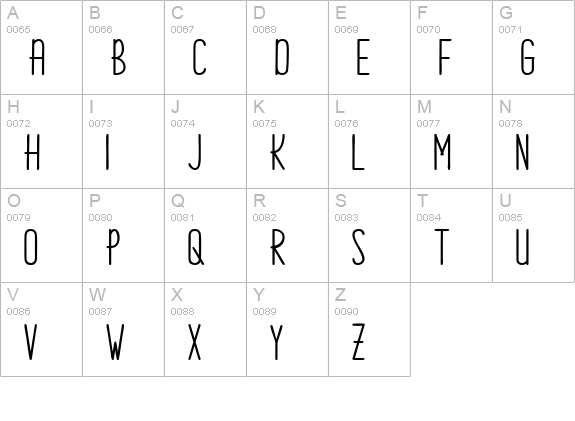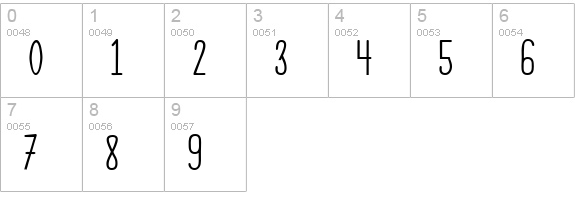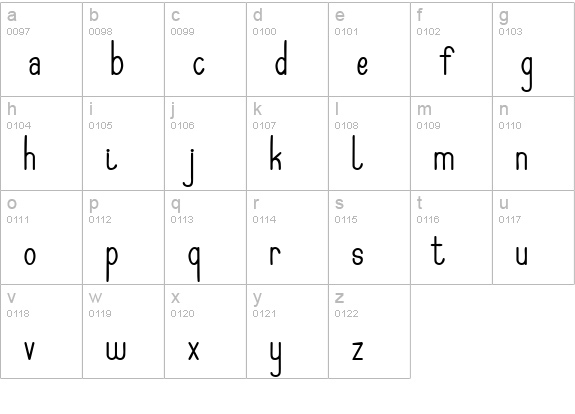
ASBAKorek Font Details
ASBAKorek is a free for personal use font in the General > Basic category, designed by Serin Studio. It has been downloaded 297 times and is available for Windows, Mac and Linux.
ASBAKorek font is a versatile and stylish typeface that adds a touch of elegance to any design project. With its sleek lines and modern appeal, ASBAKorek is perfect for a wide range of applications, from branding to editorial design. This font features a unique blend of sharp edges and smooth curves, creating a harmonious balance that catches the eye.